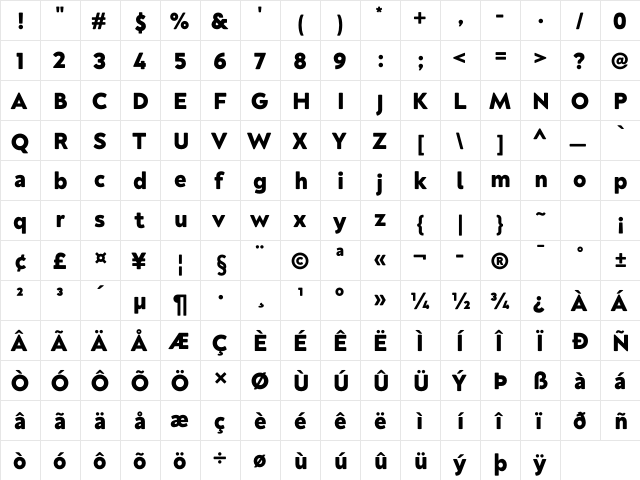
Neufreit ExtraBold Regular
| Designer | Wahyu S. Adi Wibowo |
Design Context for Neufreit ExtraBold Typeface
Neufreit ExtraBold takes a measured approach to typography — its balanced proportions and neutral character make it a reliable workhorse for both digital and print work. The heavy weight commands attention and anchors typographic hierarchies.